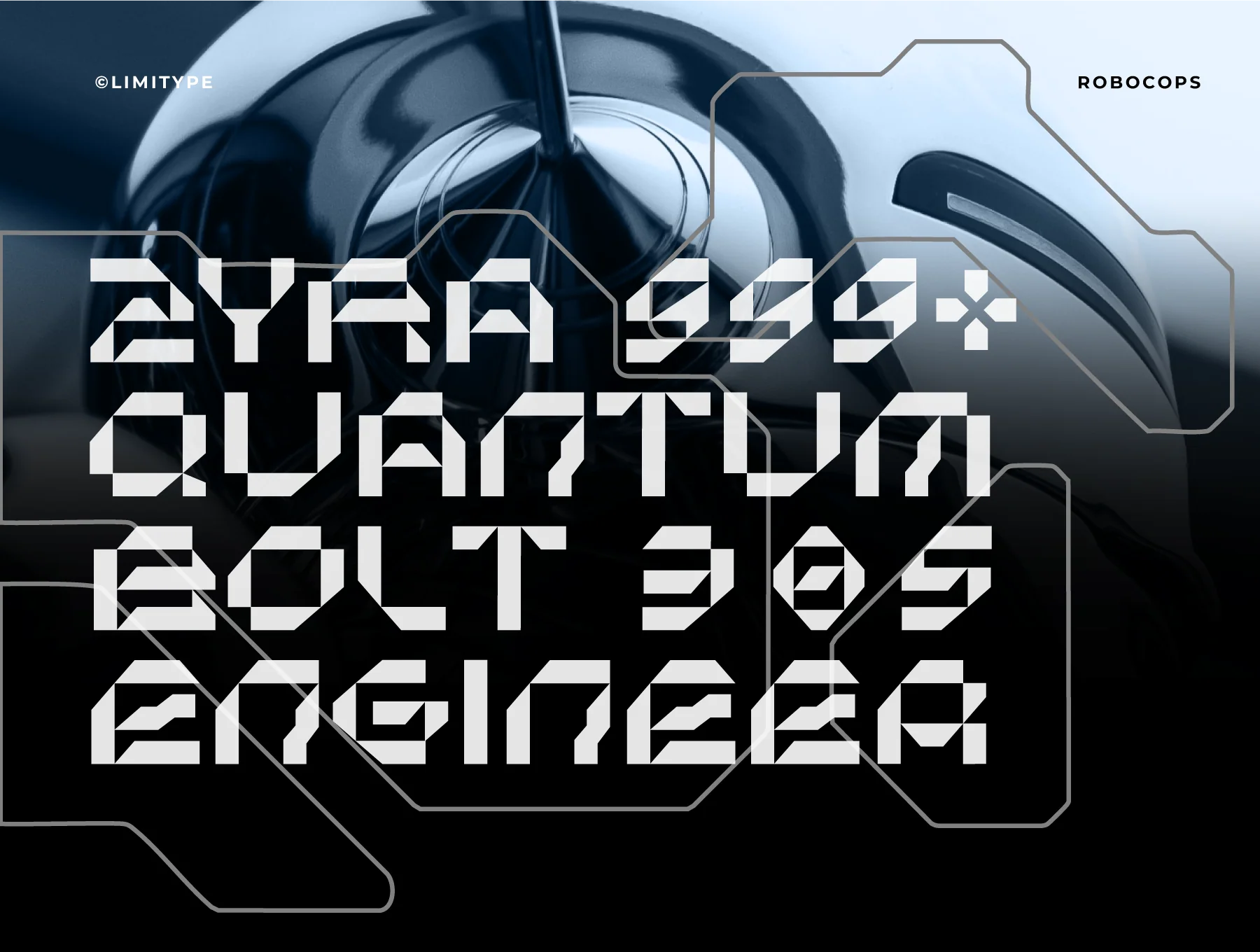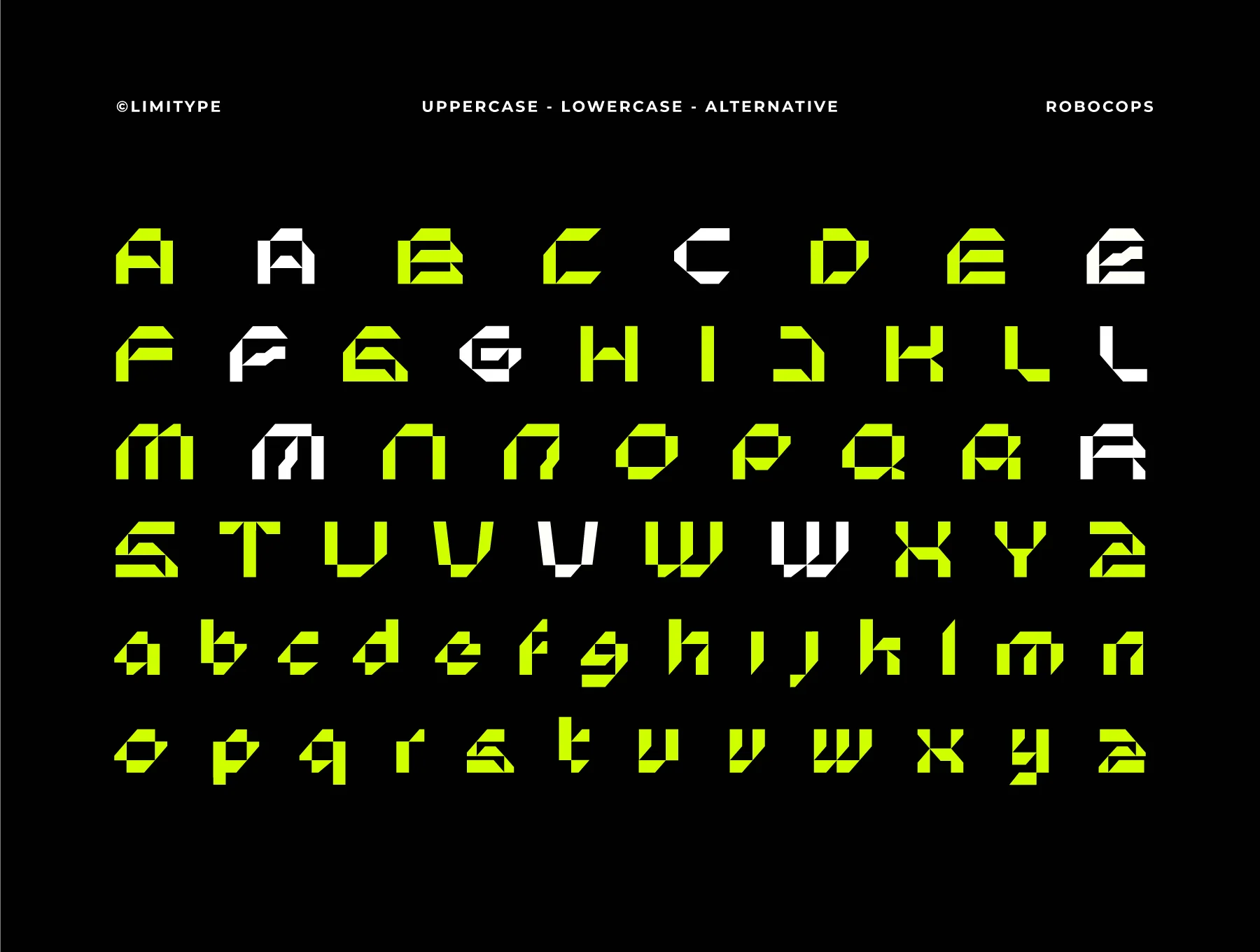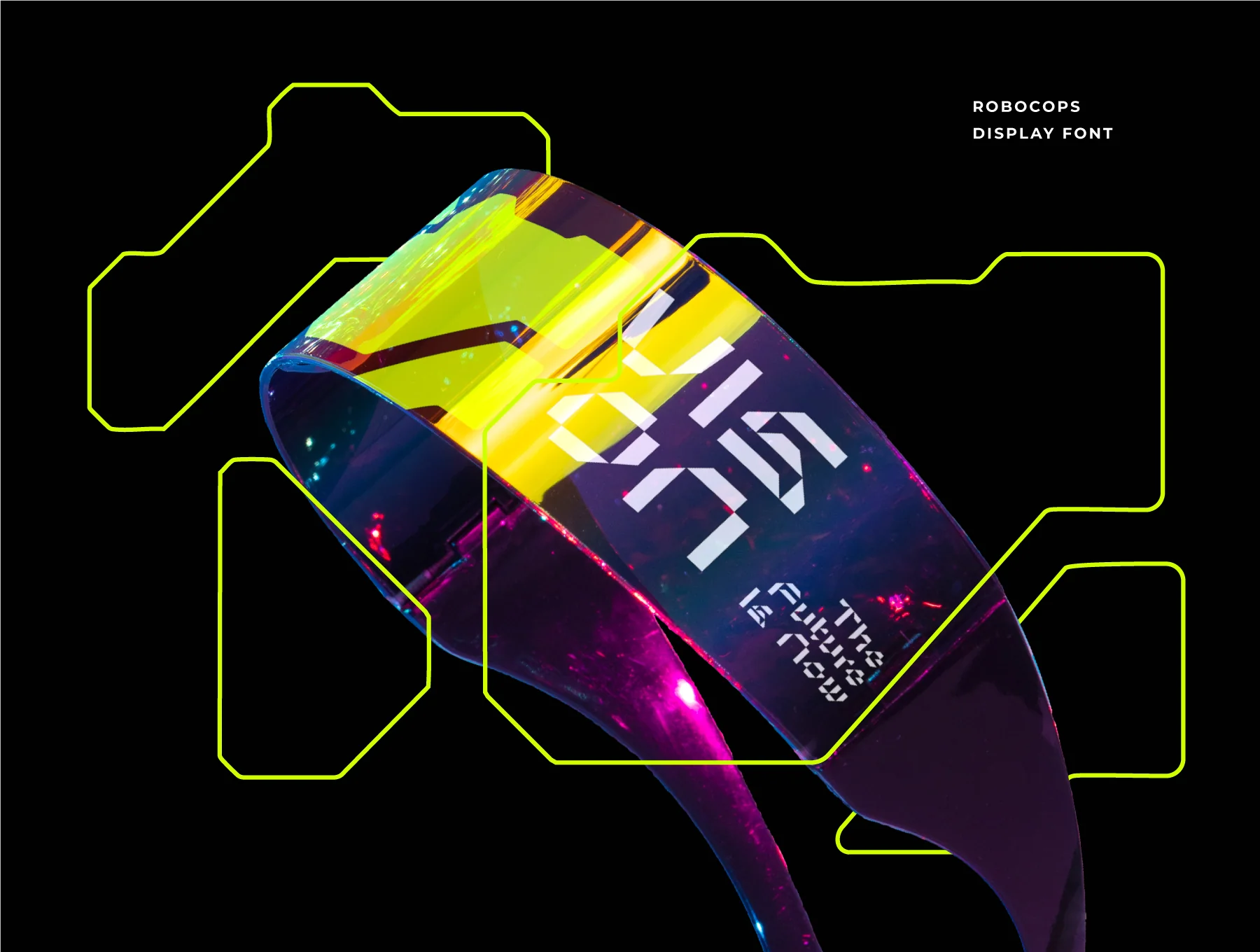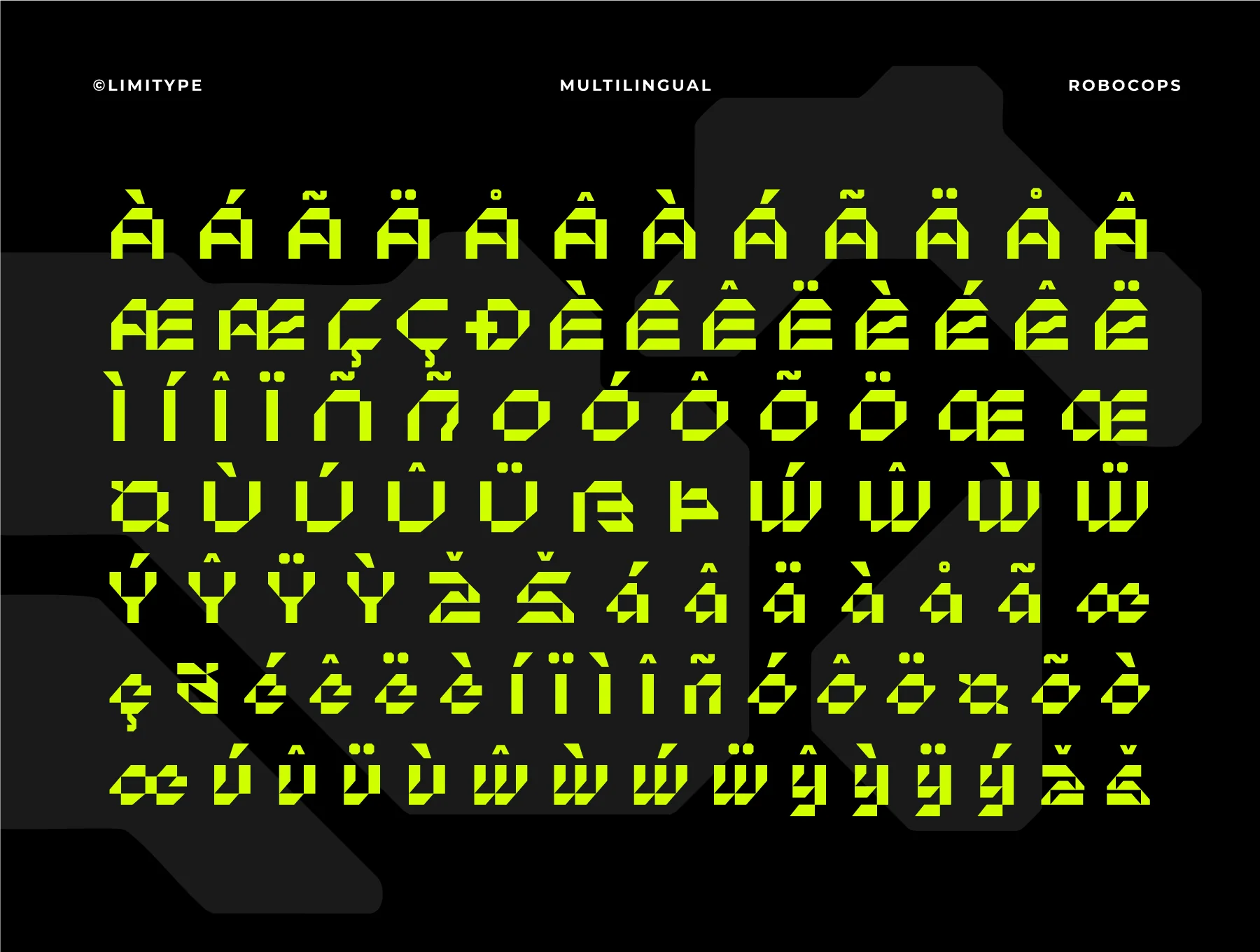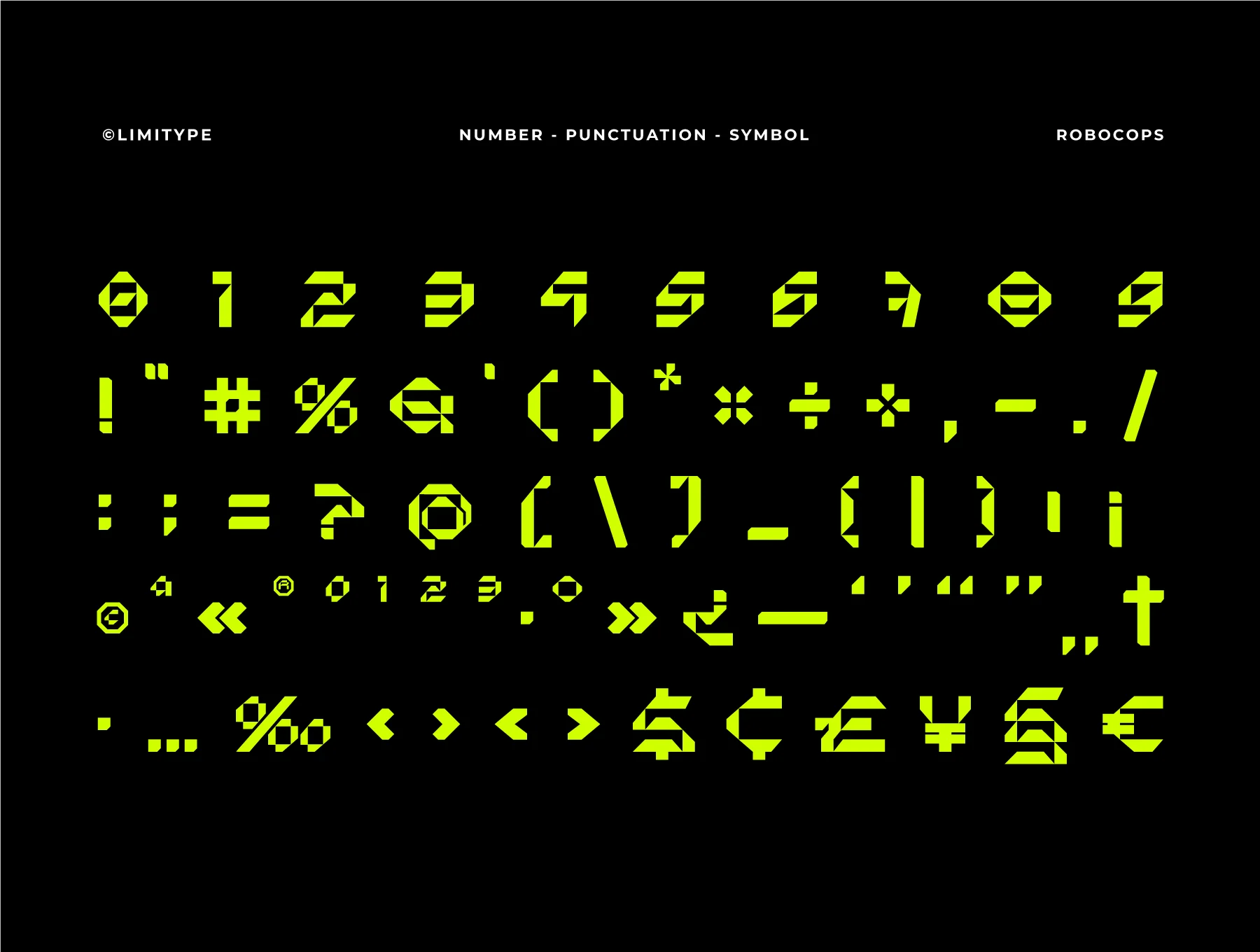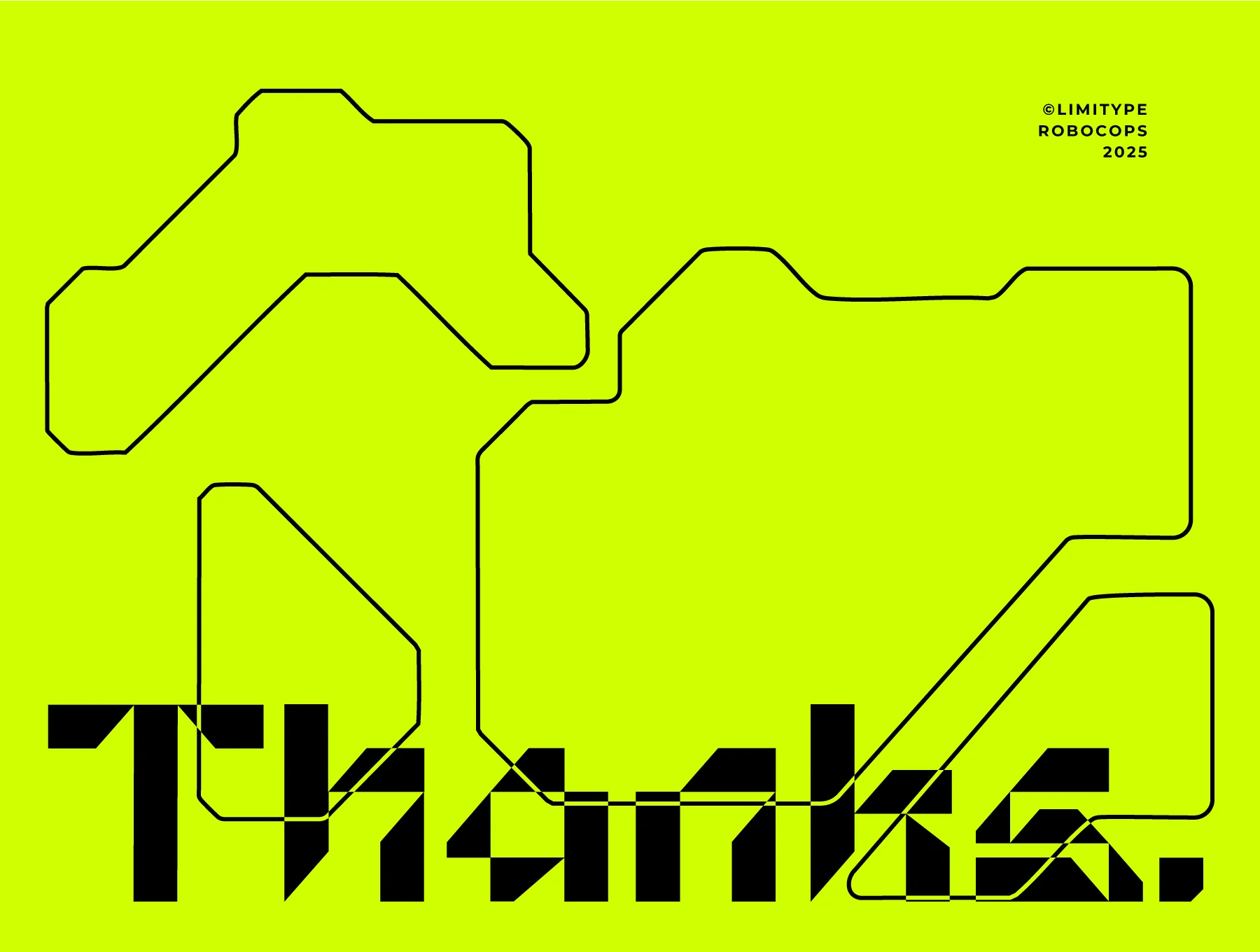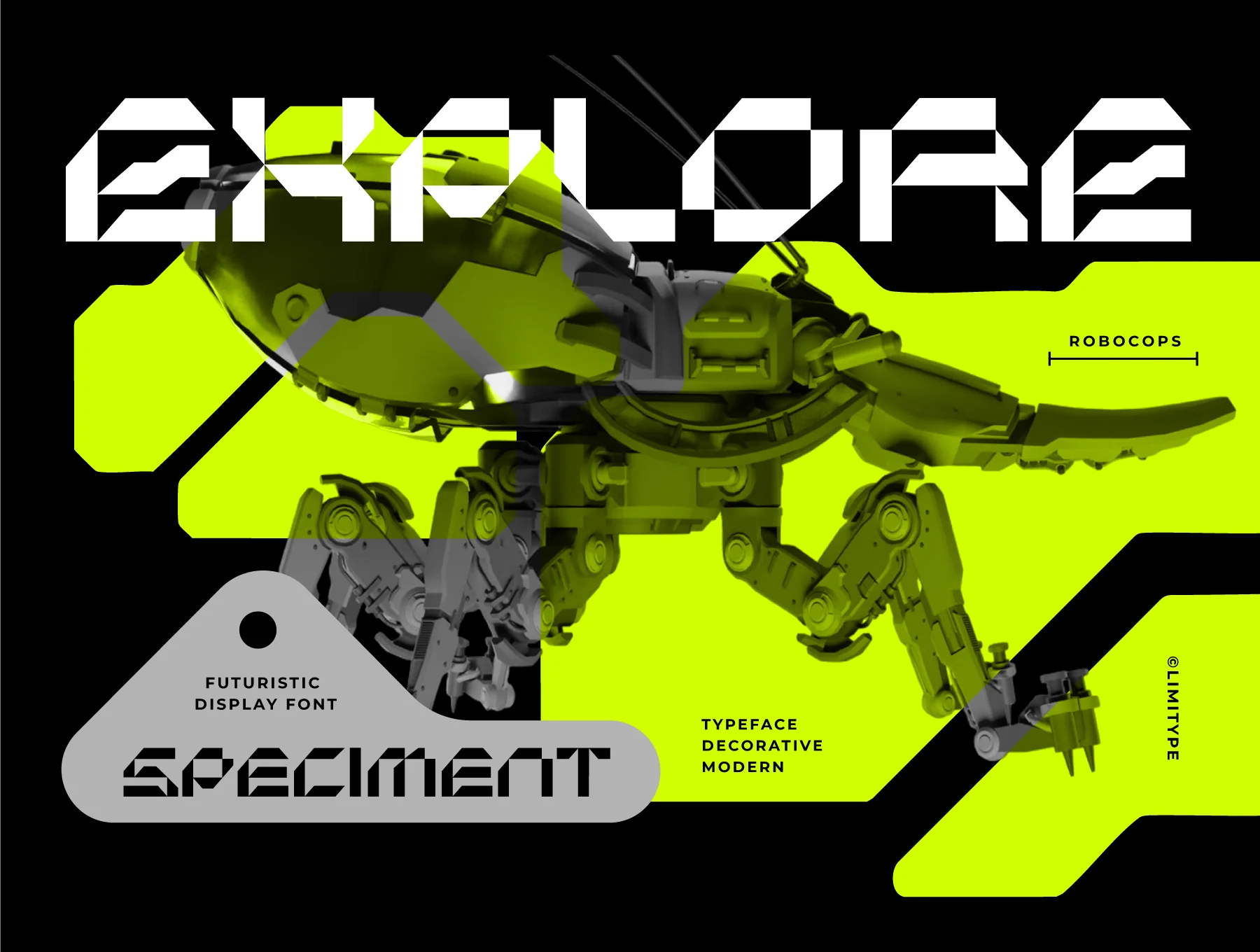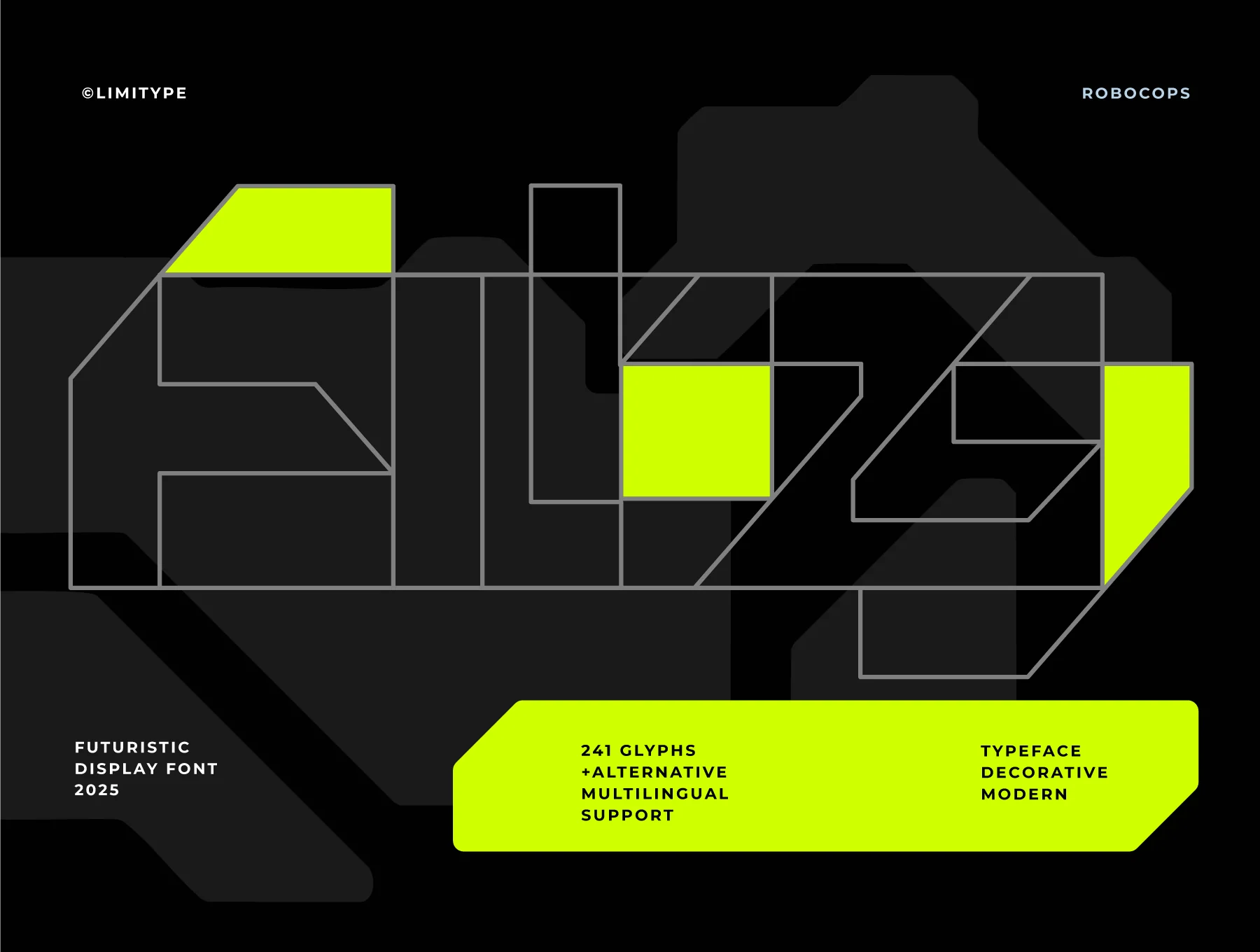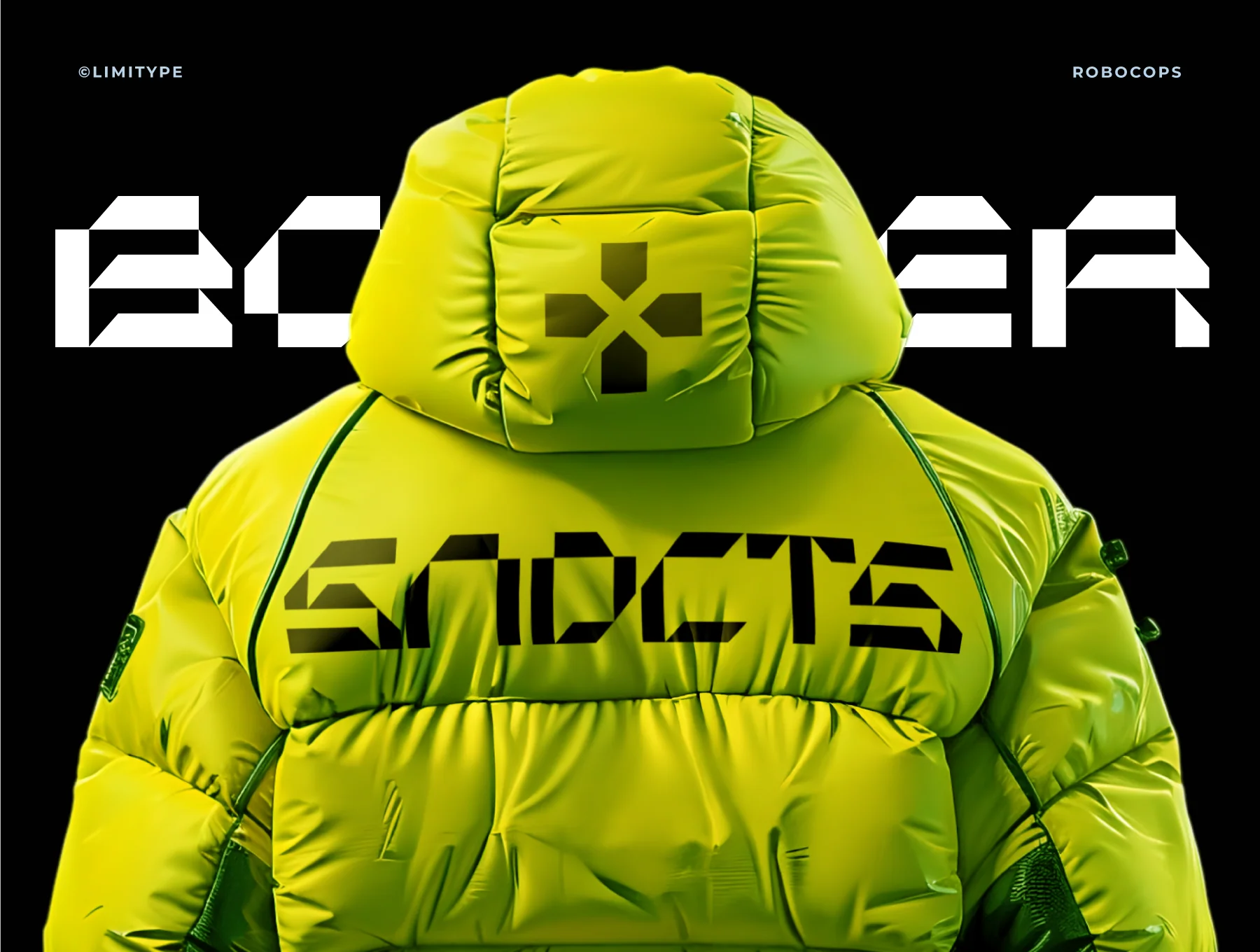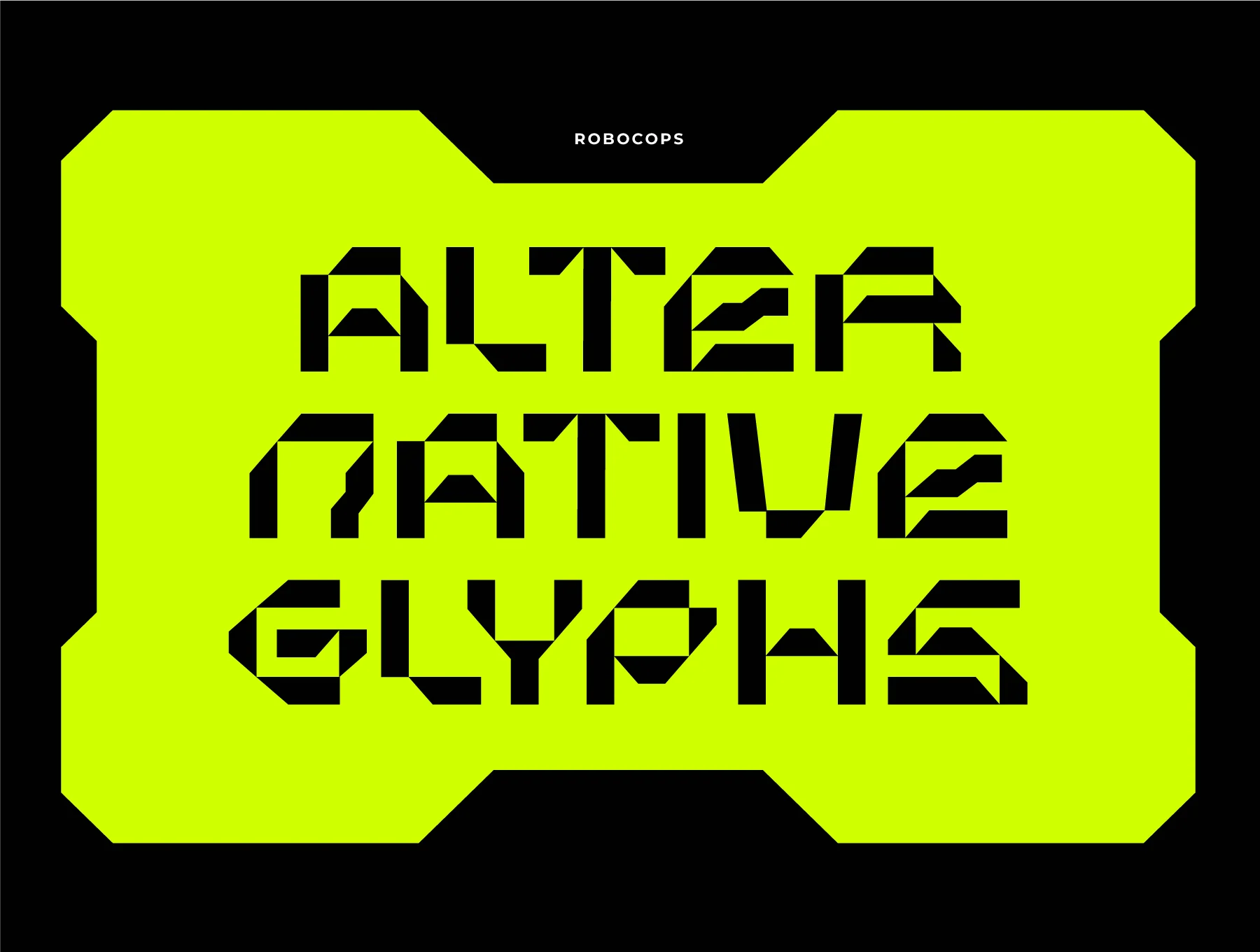
Robocops
Futuristic Typeface
Robocops is a striking display typeface with a sci-fi look, built from geometric forms and crisp angular details. It creates a powerful, contemporary, and memorable feel, perfect for technology, gaming, cyberpunk, and futuristic designs. Includes uppercase, lowercase, numbers, symbols, multilingual support, and OTF format.